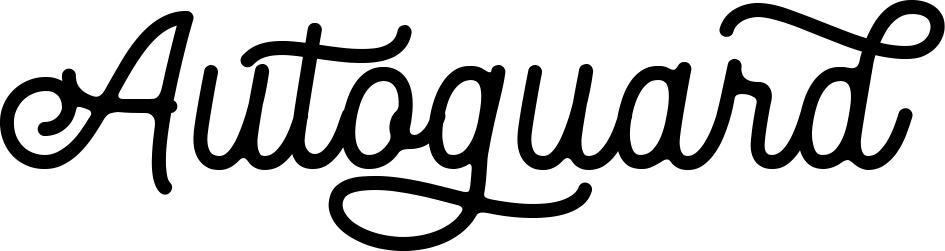
Autoguard Font
Designed bySuby Studio
Autoguard font is one of the most different handwritten and retro fonts introduced. This monoline font with a grunge background will be the best choice for designing business cards, flyer posters, and postcards.
Interconnected lines in small characters can give you a choice to use for personal signatures on documents. This font is also the best example for designing cosmetic brands’ packaging.